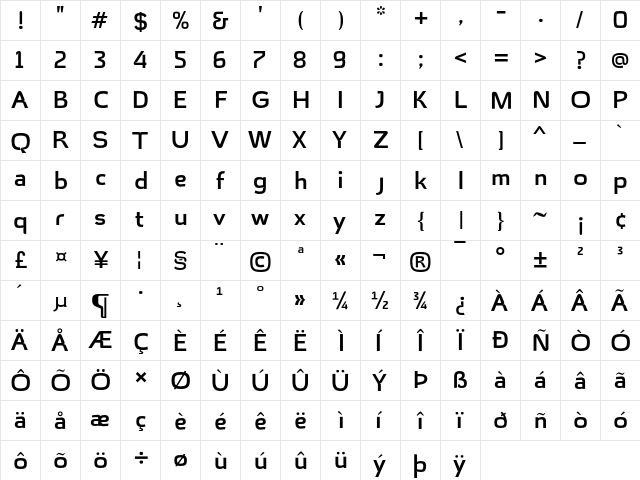
Hargloves Med Regular
| Designer | Rofiki Anas Maruf |
Design Context for Hargloves Med Typeface
Hargloves Med offers clean, dependable letterforms without strong stylistic allegiance, making it a practical choice for designers who need flexibility.